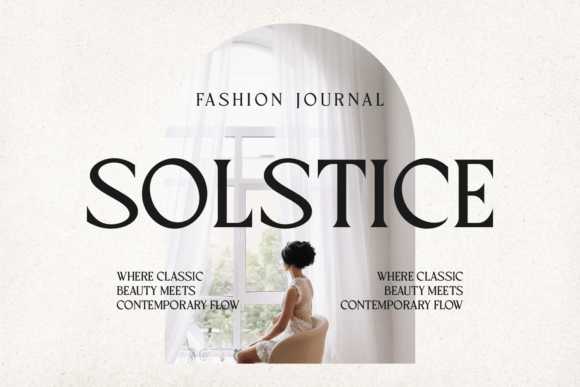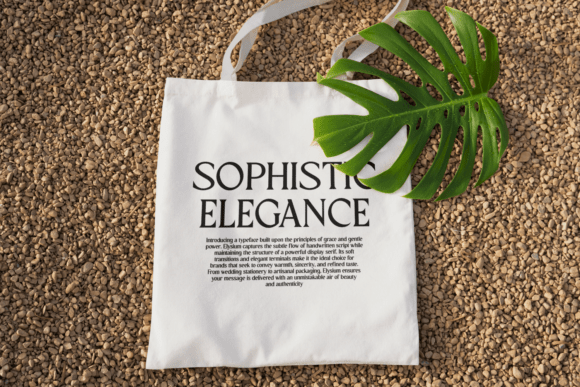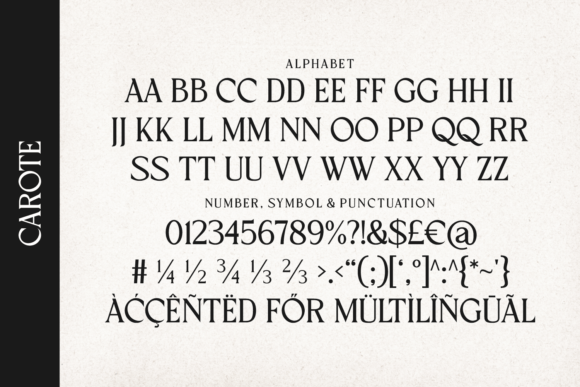
Introducing Carote Font: The Epitome of Modern Serif Elegance
In the realm of typography, few fonts manage to strike a balance between classic sophistication and contemporary style. Carote font, however, achieves this delicate equilibrium with remarkable finesse. As a modern serif font, Carote exudes a bold yet graceful personality, making it an ideal choice for designers and crafters seeking to elevate their projects with a touch of elegance.
The Distinctive Characteristics of Carote Font
Carote’s design is marked by several distinctive features that set it apart from other serif fonts. Its elegant curves, sharp serifs, and unique letter details come together to create a visually stunning typeface. The font’s curves are meticulously crafted to convey a sense of fluidity and movement, while the sharp serifs add a touch of sophistication and refinement.
One of the key strengths of Carote font is its versatility. Its bold yet elegant design makes it suitable for a wide range of applications, from branding and fashion editorials to logos and luxury packaging. Whether you’re looking to create a lasting impression with a bold statement or add a touch of sophistication to your design, Carote is the perfect choice.
Branding and Logos
When it comes to branding and logos, Carote font offers a unique opportunity to create a lasting impression. Its bold and elegant design ensures that your brand stands out from the competition, while its classic sophistication conveys a sense of tradition and heritage. Whether you’re launching a new brand or refreshing an existing one, Carote is the perfect choice.
Fashion Editorials and Luxury Packaging
In the world of fashion, typography plays a crucial role in conveying style and sophistication. Carote font, with its elegant curves and sharp serifs, is perfectly suited to fashion editorials and luxury packaging. Its bold yet refined design ensures that your brand or product stands out on the page or shelf, while its classic sophistication conveys a sense of high-end quality.
Why Choose Carote Font?
So why choose Carote font for your design project? Here are just a few compelling reasons:
- Unique Design: Carote’s distinctive curves, serifs, and letter details make it a standout choice in the world of typography.
- Versatility: Carote is suitable for a wide range of design applications, from branding and fashion editorials to logos and luxury packaging.
- Classic Sophistication: Carote’s classic design ensures that your project conveys a sense of tradition and heritage, while its contemporary style adds a touch of modernity.
- Elegance and Refined: Carote’s elegant curves and sharp serifs add a touch of sophistication and refinement to any design project.
In conclusion, Carote font is a modern serif font that offers the perfect balance of classic sophistication and contemporary style. Its elegant curves, sharp serifs, and unique letter details make it a standout choice for designers and crafters seeking to elevate their projects with a touch of elegance. Whether you’re working on a branding project, fashion editorial, logo, or luxury packaging, Carote is the perfect choice.